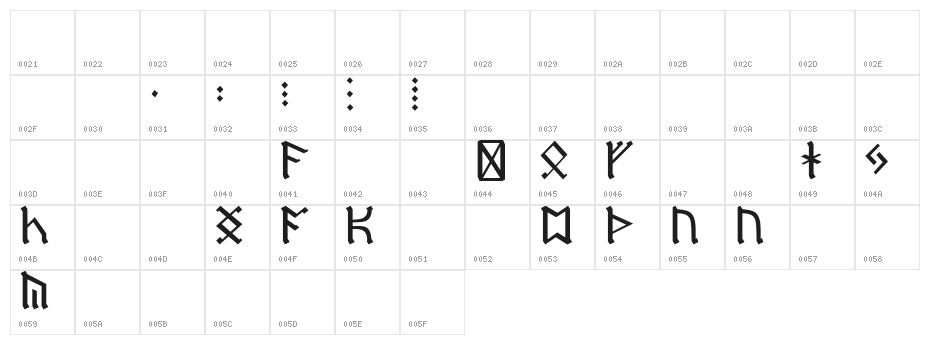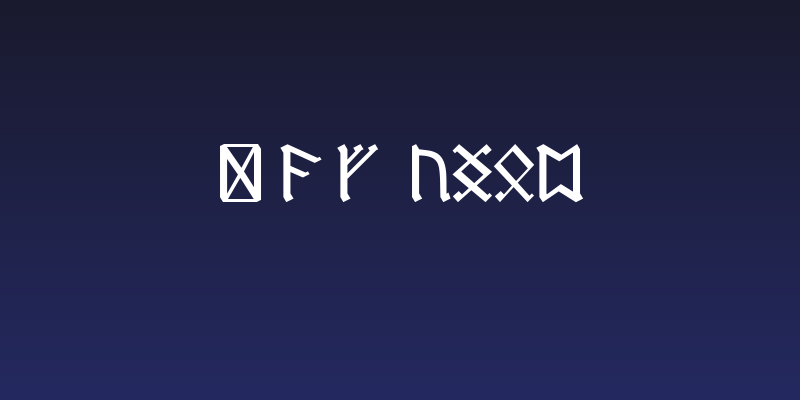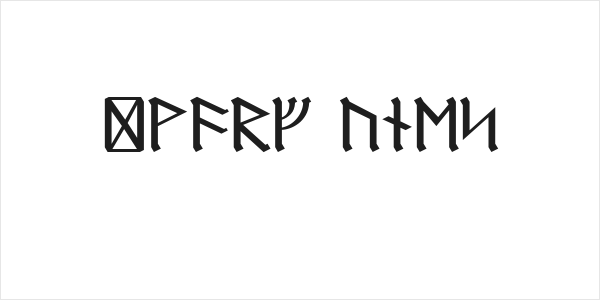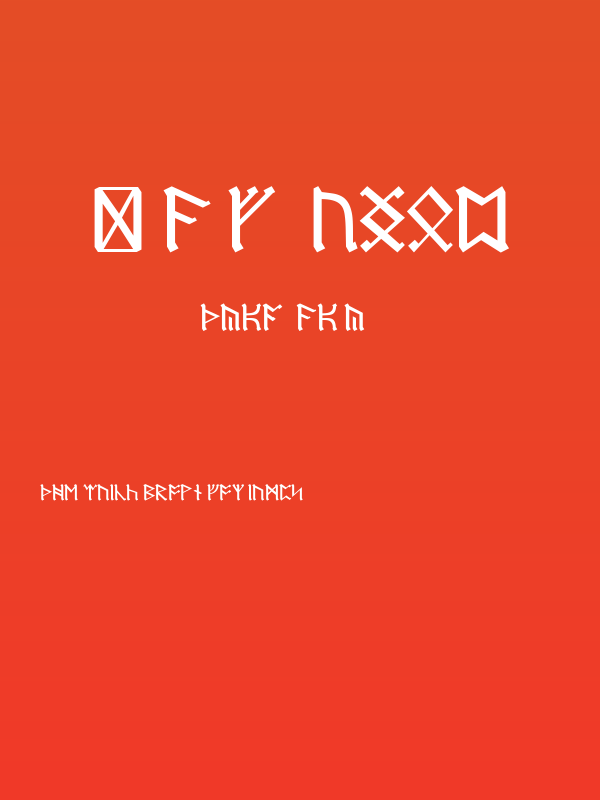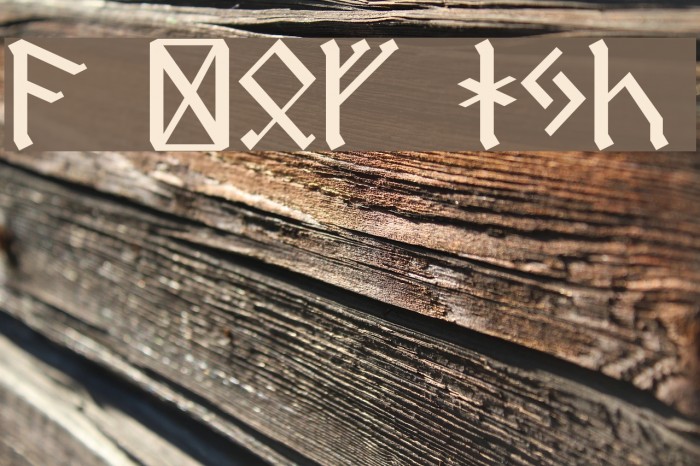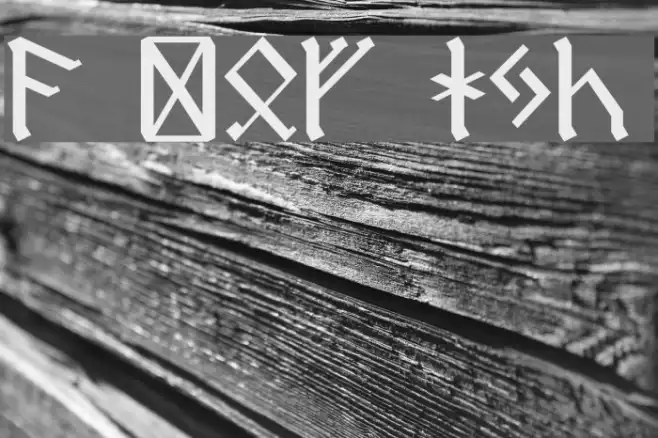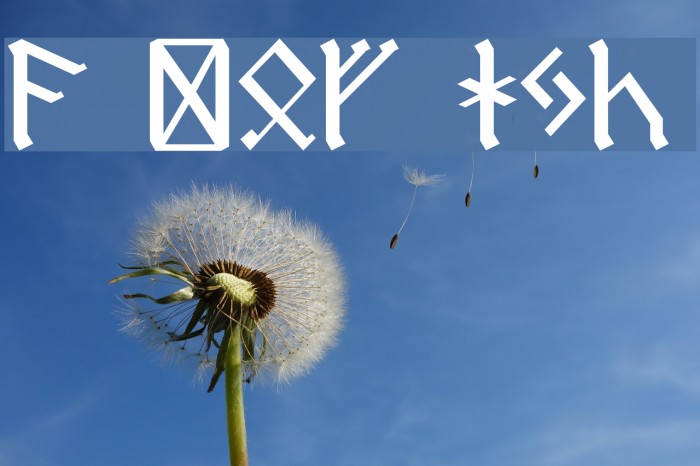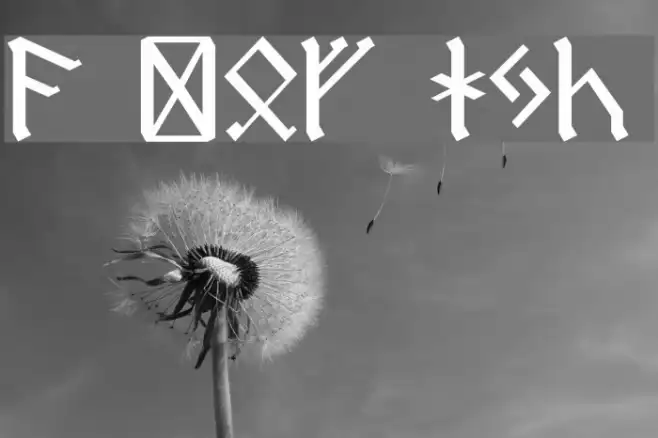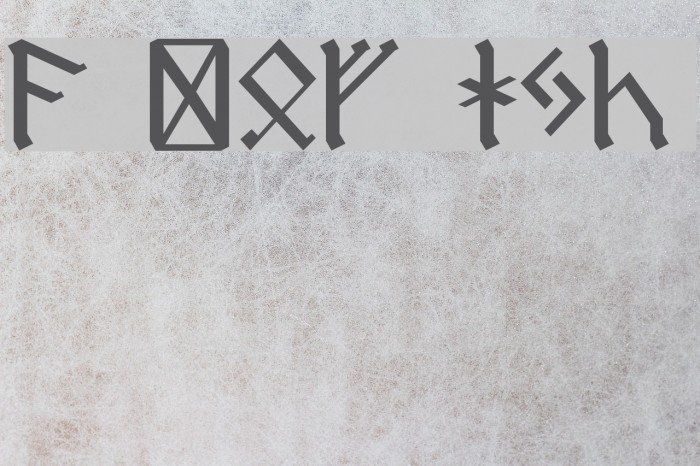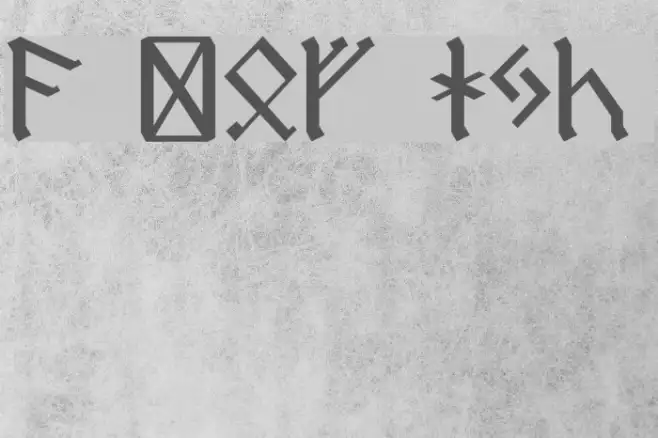
Dwarf Runes Font
Dwarf Runes Description
This font is a stylized representation of ancient runic alphabets, characterized by its angular and geometric shapes. Each character is crafted with sharp edges and straight lines, evoking a sense of mystery and antiquity. The font's design is reminiscent of inscriptions found on ancient stones or artifacts, often associated with fantasy or historical themes. Its unique style makes it stand out, capturing the essence of a bygone era. The characters are evenly spaced, ensuring readability while maintaining an authentic runic appearance. This font is perfect for projects that aim to convey a sense of history, magic, or adventure.
| Use Case | Logos, Headlines, Themed projects |
| Proposed Projects | Ideal for fantasy book covers, historical documentaries, game design, or themed event invitations. |